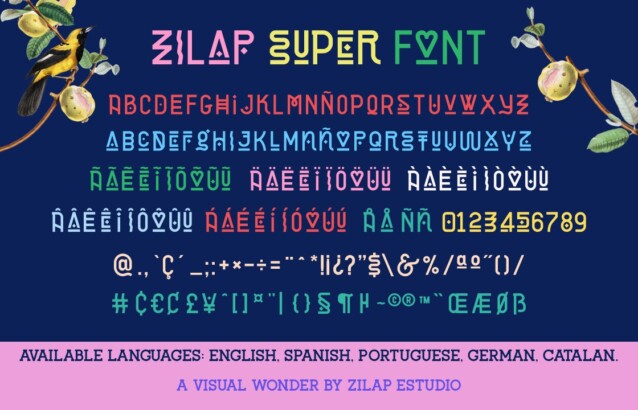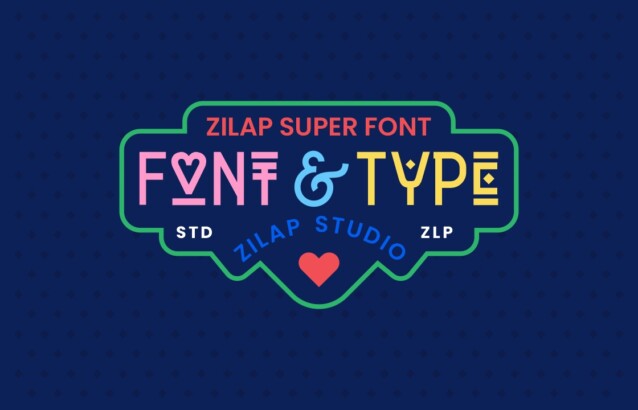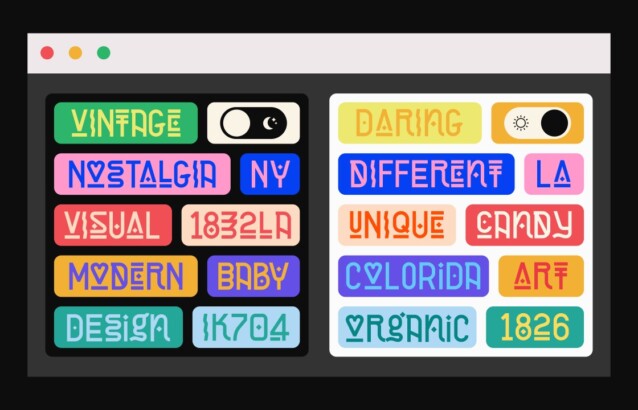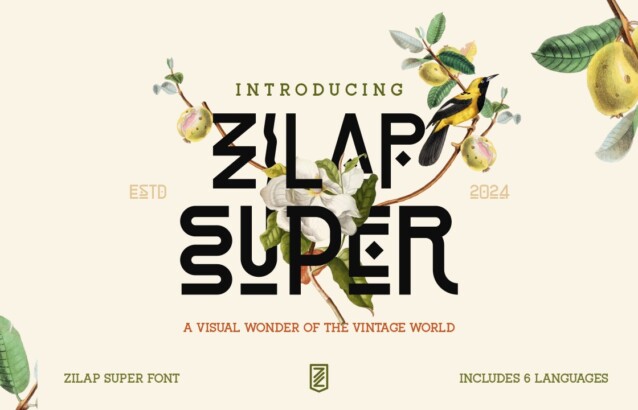
Zilap Super Font
Zilap Super Font is a dynamic modern sans-serif font manufactured by Zilap Estudio. It is perfect for a wide range of design projects, from logos and branding to headlines and posters. Its letters are colorful, with a mix of geometric and organic shapes, and incorporating vintage elements, it is bold, confident and changeable. It’s not a basic font, it’s a font designed to create something truly unique.